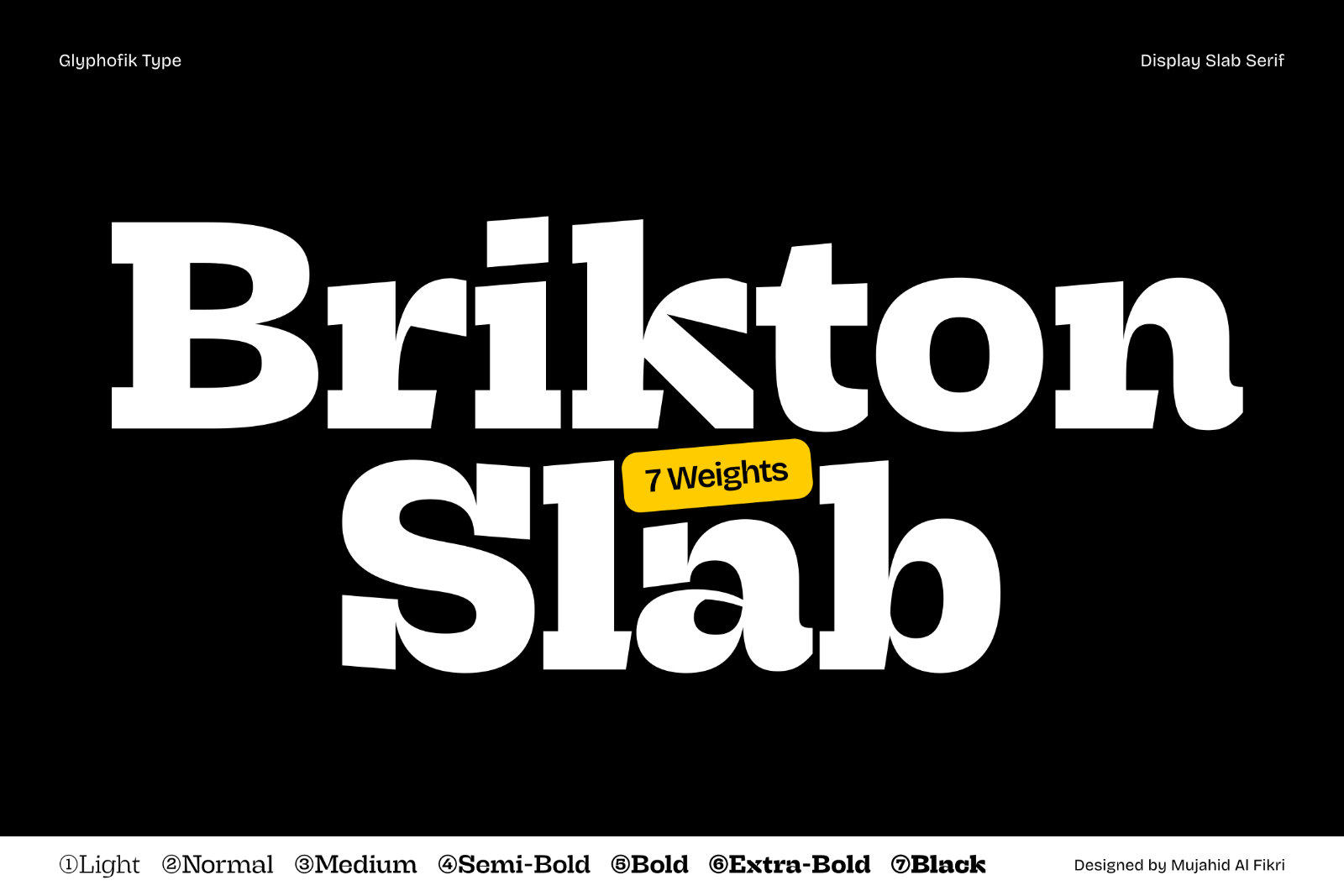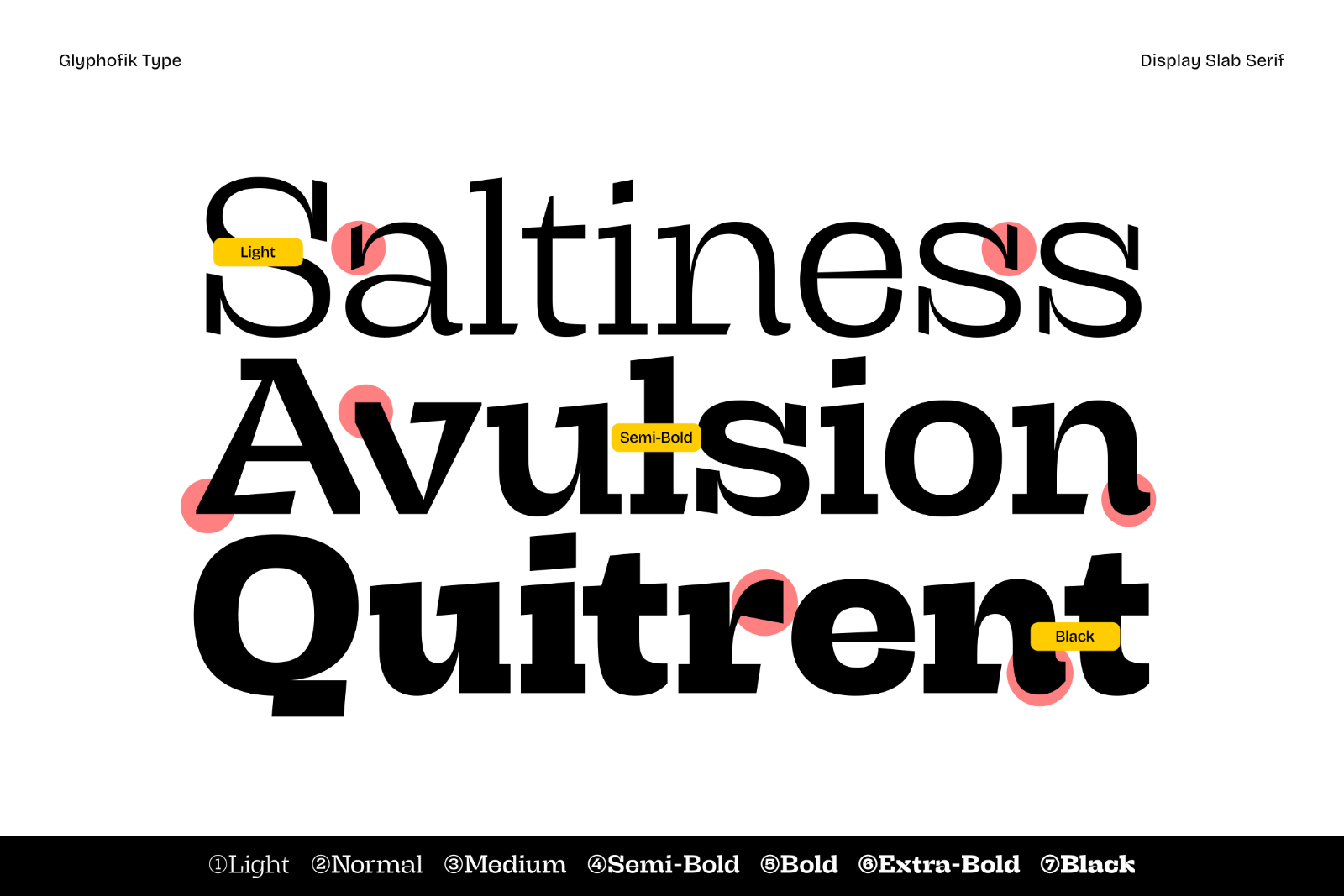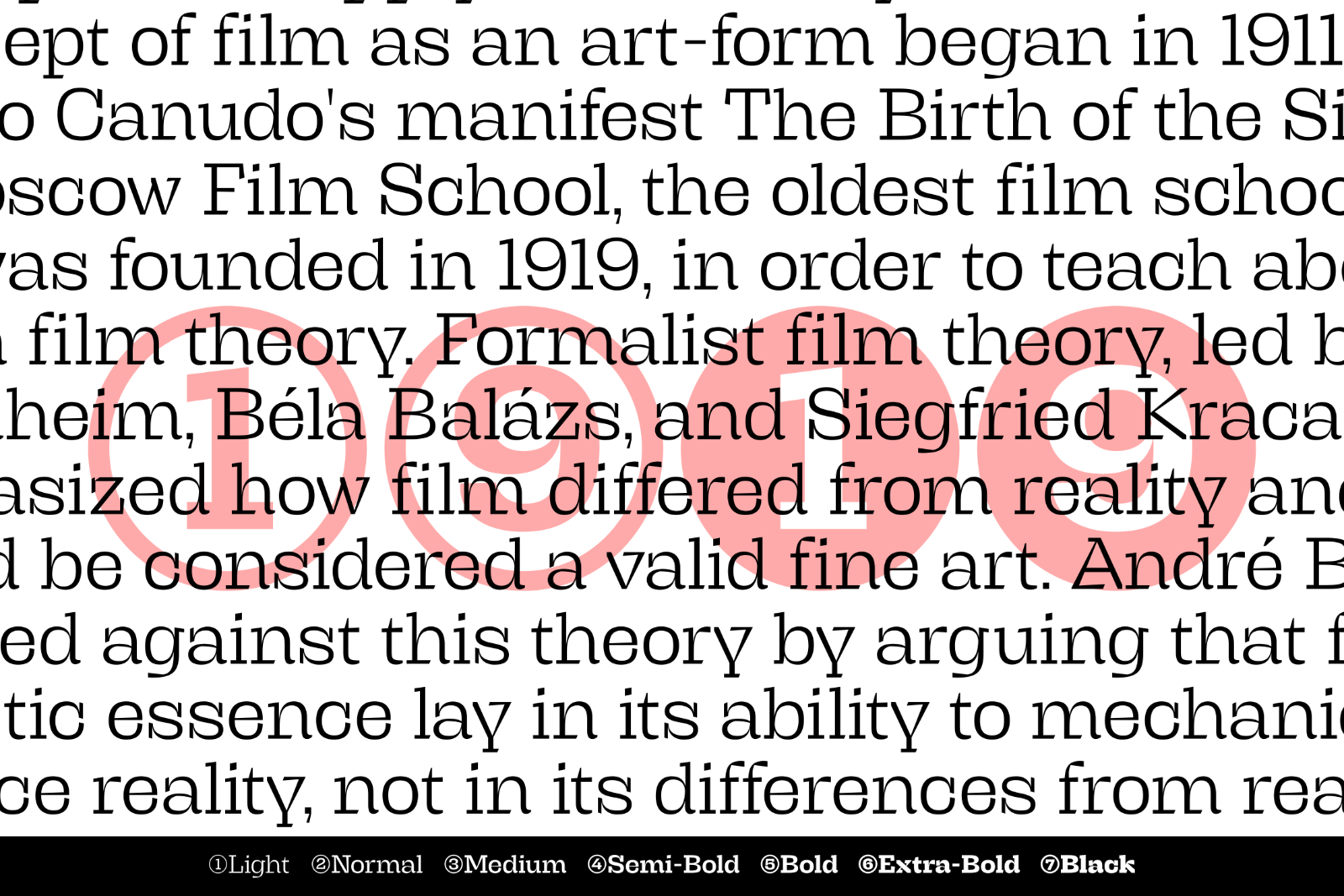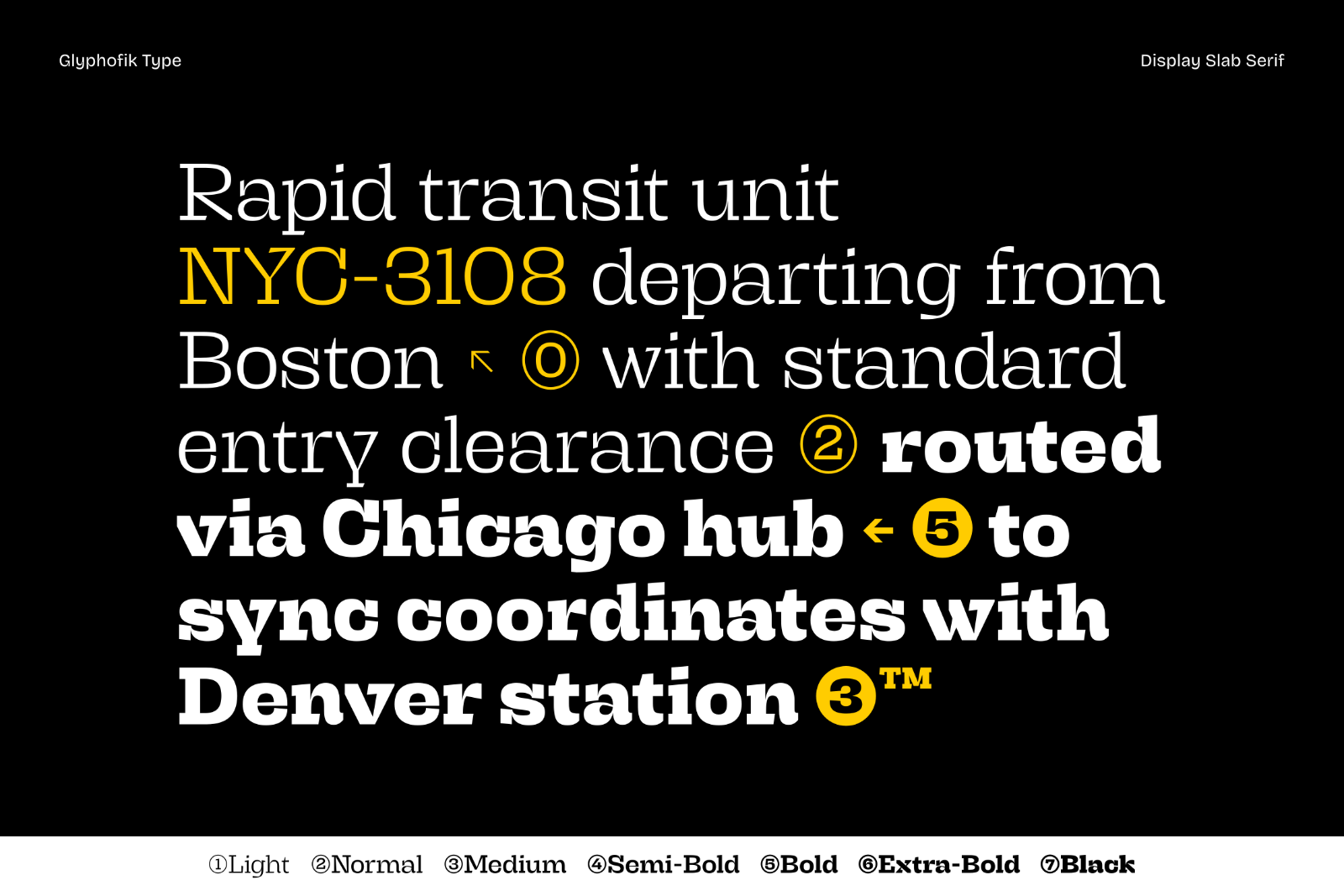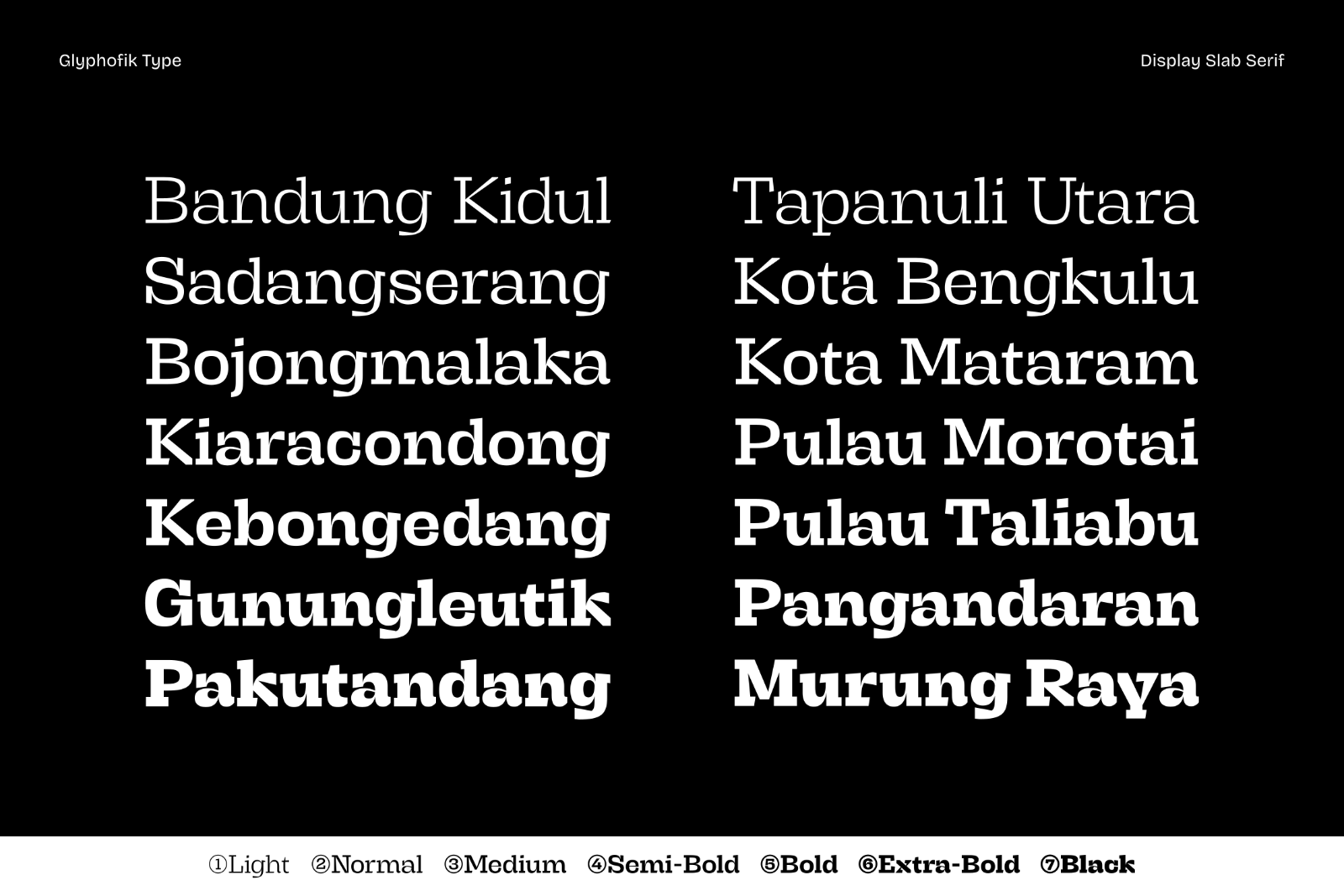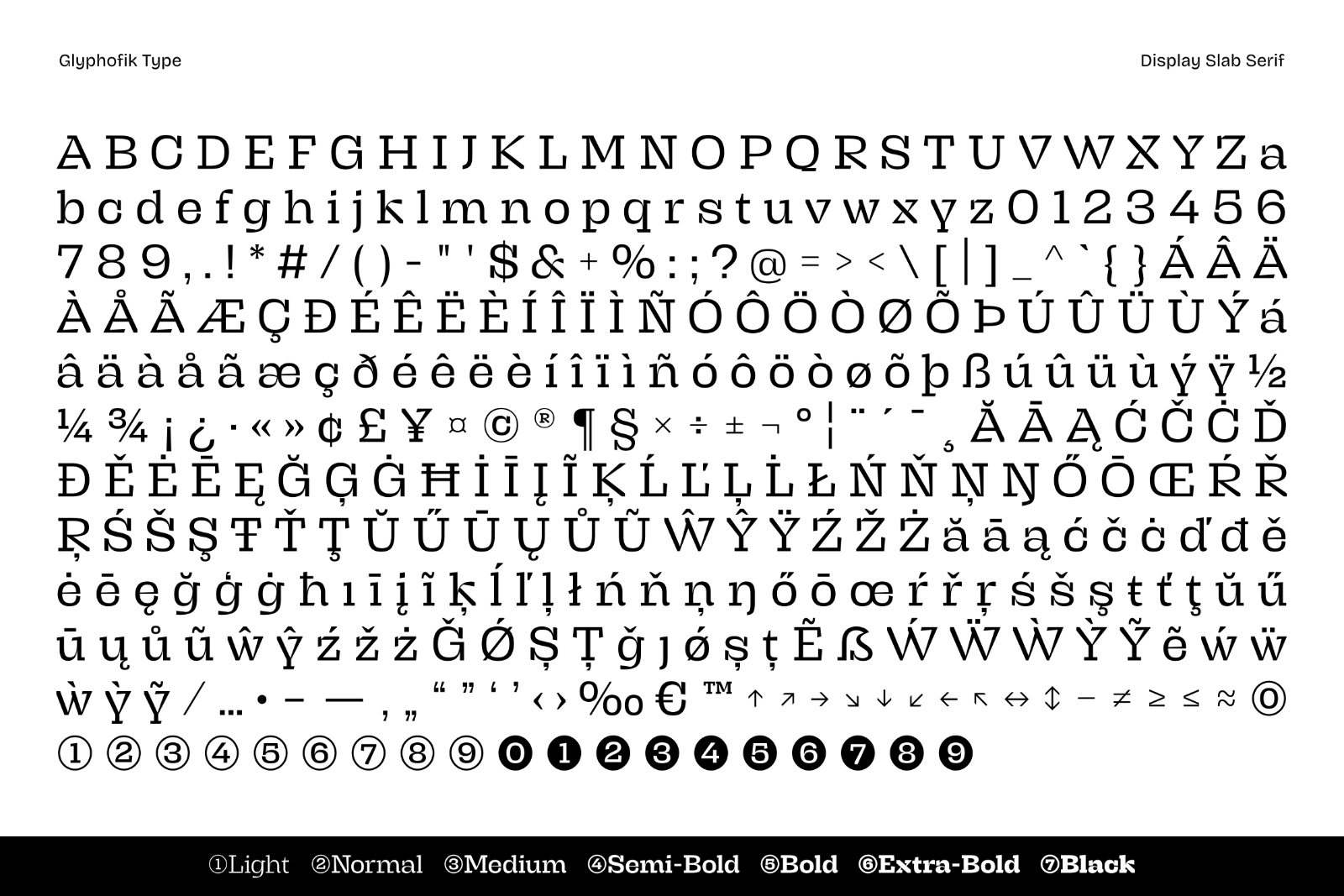
Brikton is a Slab serif typeface with a combination of bold and slightly playful characteristics. Glyphs like d, h, m, and n don't end with a serif like most slab typefaces, but follow the tail of the letter a, creating a playful characteristic. Furthermore, the left inner serif (for example, on the letter n) is extended and cut at an angle to compensate for the space within the letter, preventing it from appearing empty. Diagonal glyphs like A, K, R, V, W, X, Y, k, v, w, x, and y don't have serifs but follow the sans serif form, with the ends cut off and an inner serif added on one side. Brikton's character is ideal for designs that emphasize text as the main element, such as displays, titles, and even logos.